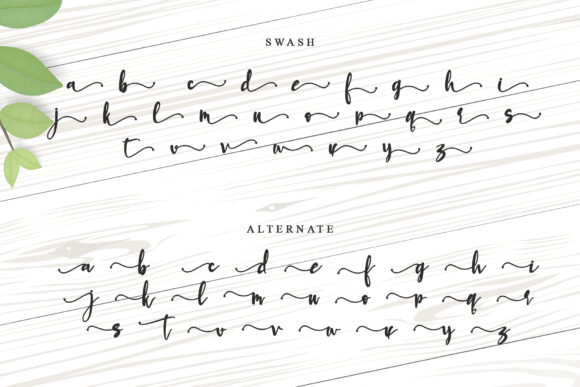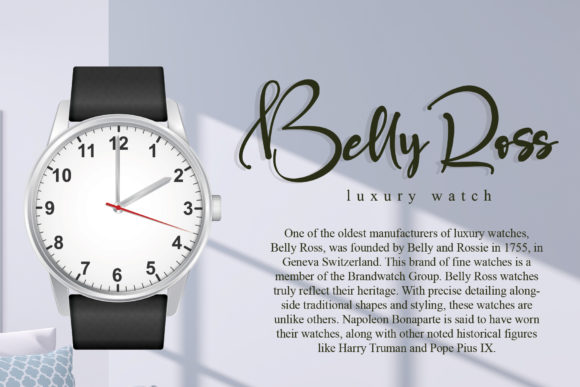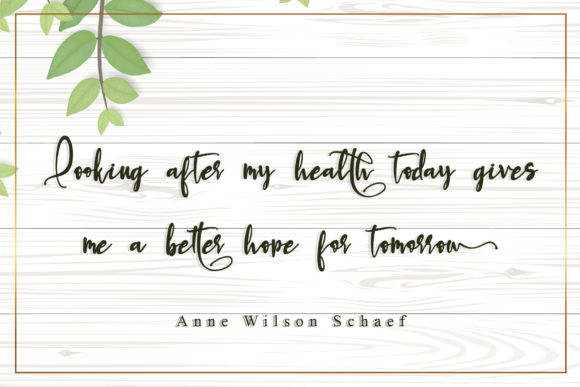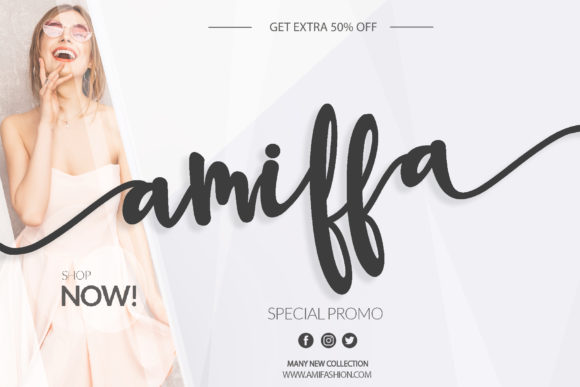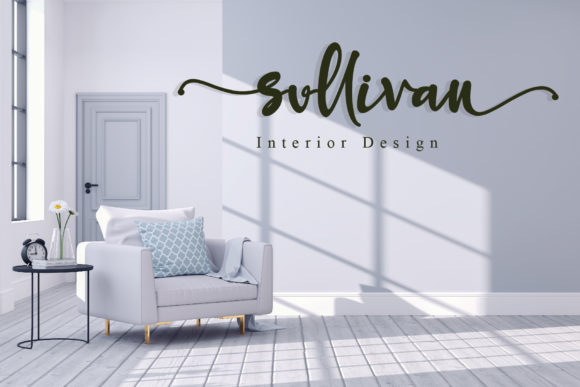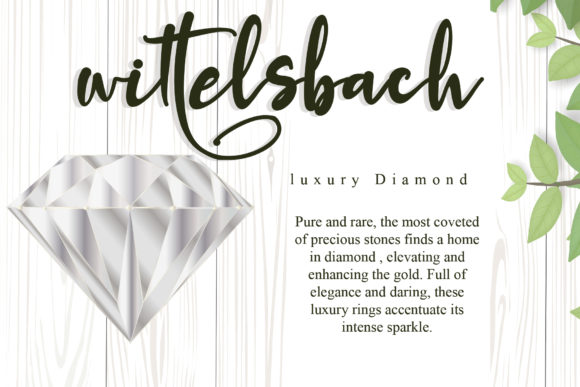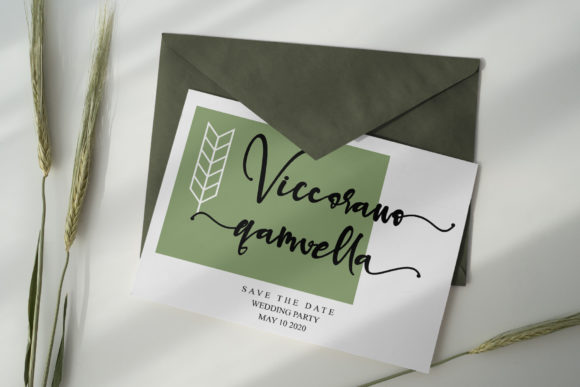
Bethania Font
About Bethania Font
Bethania is an elegant and relaxed handwritten font. Fall in love with its authentic feel and use it to create stunning art. This font is PUA encoded which means you can access all of the glyphs and swashes with ease! It features a varying baseline, smooth lines, gorgeous glyphs and stunning alternates.